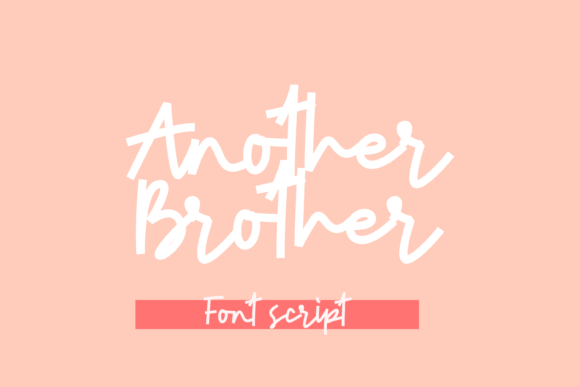
The Font that Stole My Heart: A Deep Dive into Another Brother
I still remember the design project that led me to discover Another Brother. I was working on a children’s book cover, and my client wanted a playful, yet elegant font that would appeal to both kids and parents. I spent hours scouring the internet, trying out different fonts, but none seemed quite right. That was until I stumbled upon Another Brother. Its sweet, handwritten charm instantly won me over, and it became the perfect fit for the project. In this article, I’ll share my love for this beautiful font, its features, and how to make the most of it in your designs.
An Honest Review of Another Brother
• ✨ Playful and sweet: Another Brother has a unique, whimsical feel that’s perfect for designs that need a touch of personality.
• ✅ Highly versatile: This font can be used for a wide range of projects, from cartoon-related designs and children’s games to quotes, titles, brand names, book covers, and posters.
• 💫 Beautifully crafted: The font’s handwritten style has a lovely, organic feel that adds a touch of elegance to any design.
While Another Brother is an amazing font, it’s not perfect. Here are a few things to keep in mind:
• 🤔 Limited use in formal designs: Due to its playful nature, Another Brother might not be the best choice for formal or professional designs, such as business reports or corporate branding.
• ⚠️ Legibility at small sizes: As with many handwritten fonts, Another Brother can become a bit tricky to read at very small sizes. Make sure to test it at different sizes to ensure it works for your project.
The Story Behind Another Brother
Another Brother was designed by a talented font creator who wanted to craft a font that would bring a touch of playfulness and sweetness to designs. Inspired by the beauty of handwritten fonts, the designer carefully crafted each letter to ensure that Another Brother would be both elegant and approachable.
Font Name Another Brother Font
Author Ongtype co.
Q: What type of designs is Another Brother best suited for?
A: Another Brother is perfect for designs that need a playful, yet elegant touch, such as children’s book covers, cartoon-related designs, and quotes.
Q: Is Another Brother a difficult font to read?
A: Another Brother is generally easy to read, but like many handwritten fonts, it can become tricky to read at very small sizes.